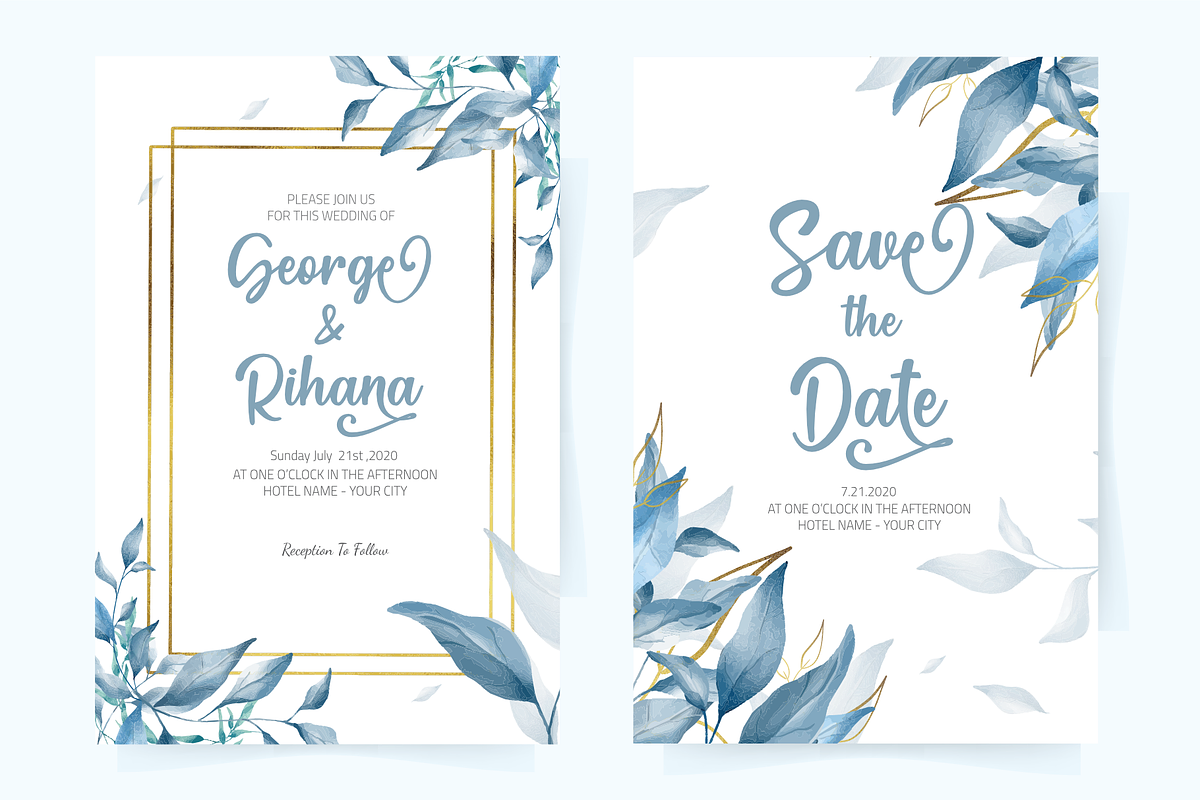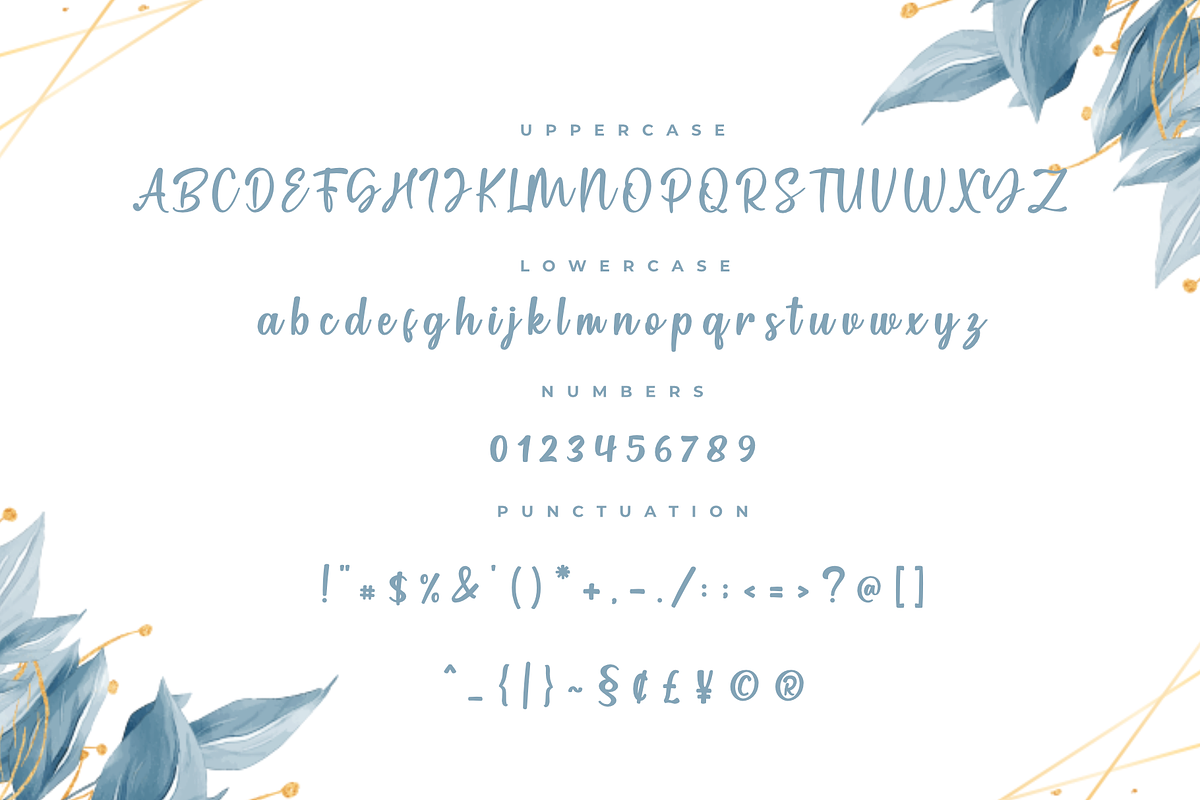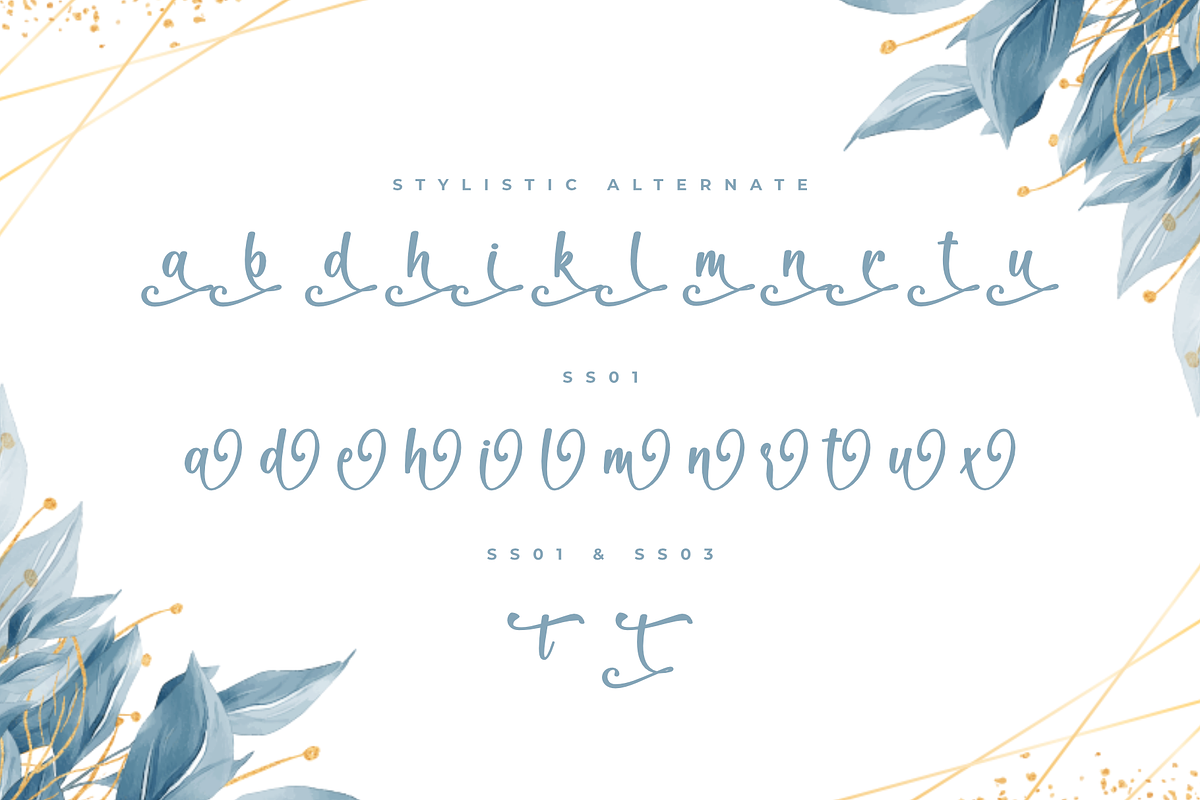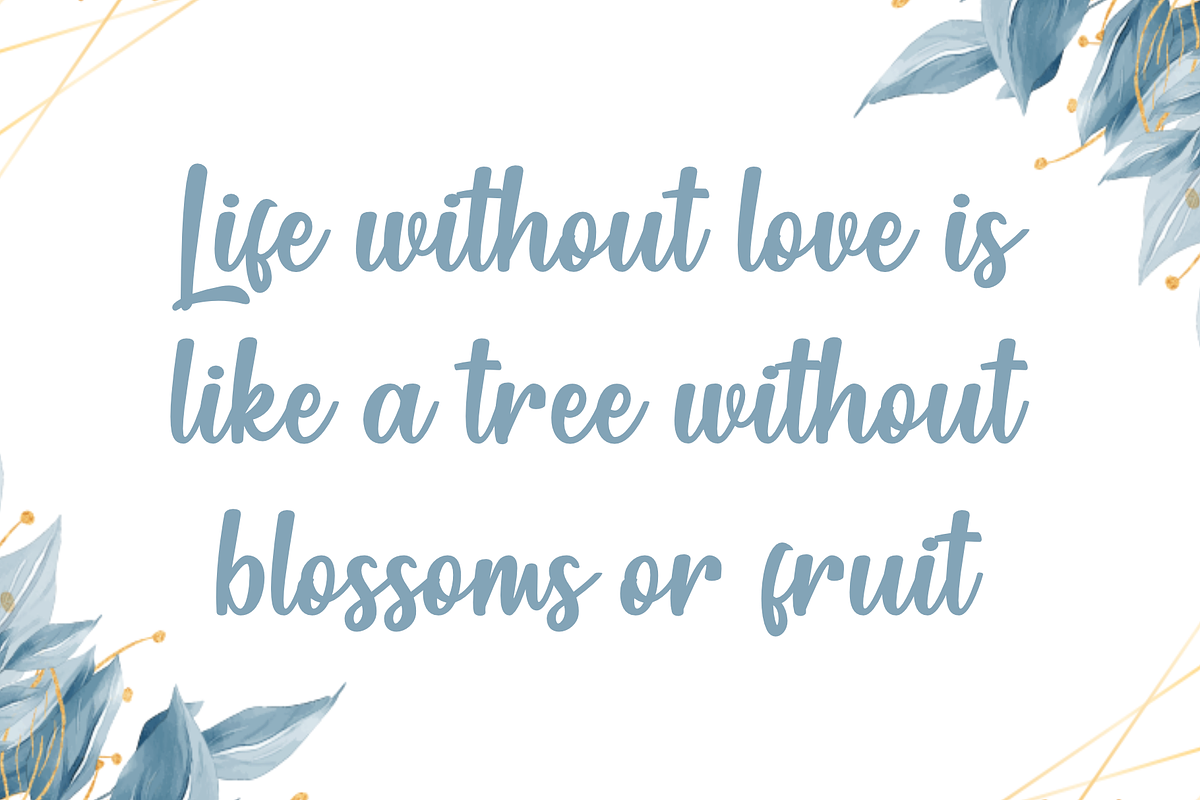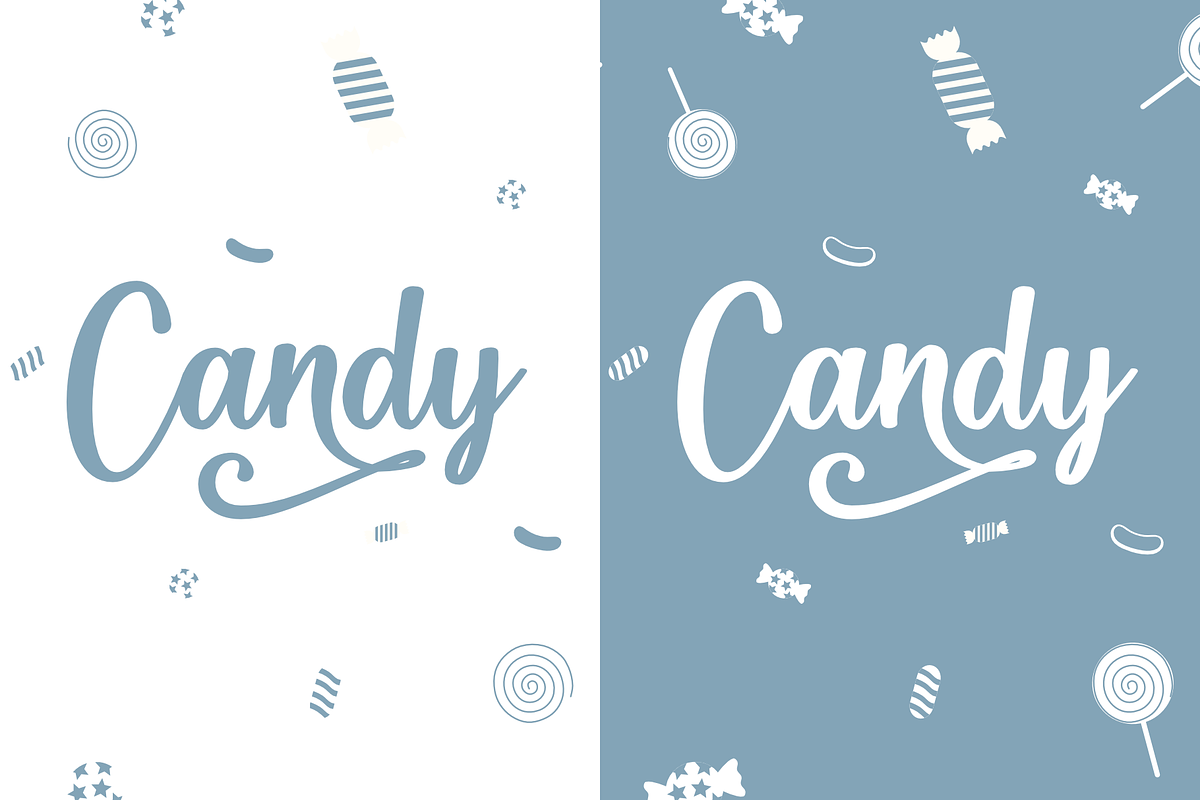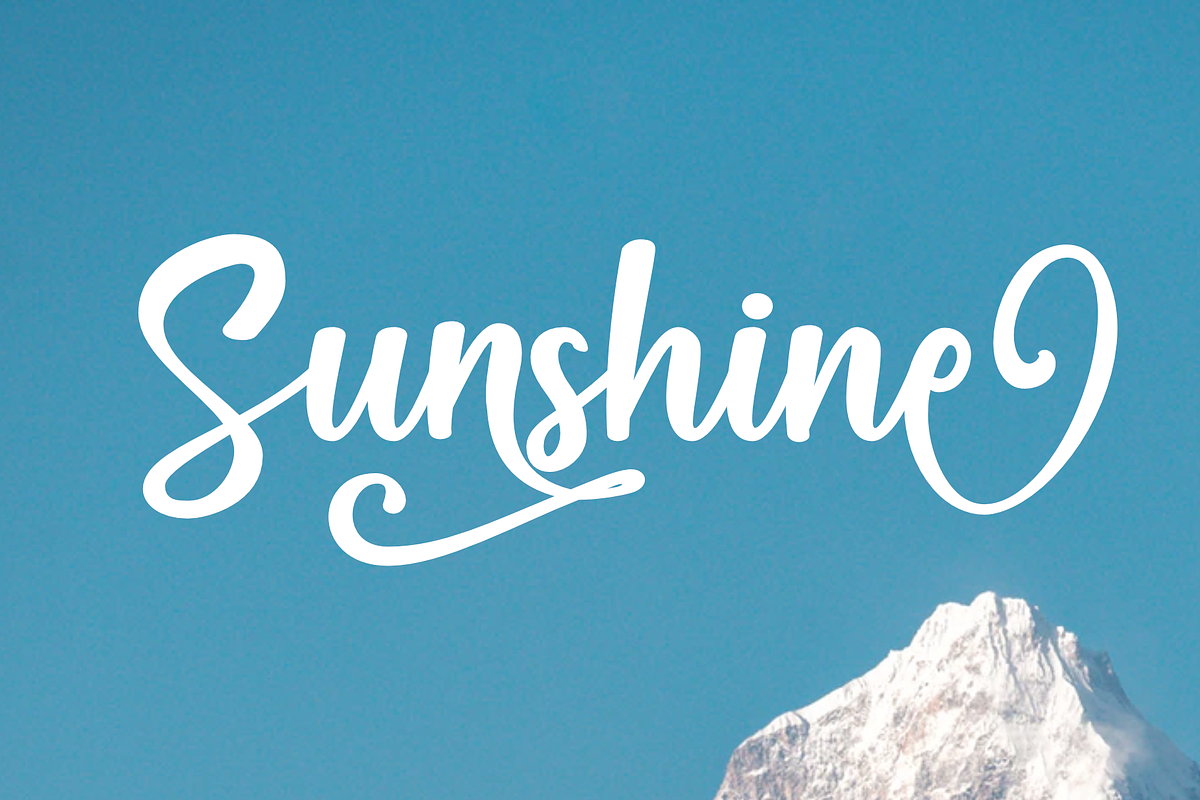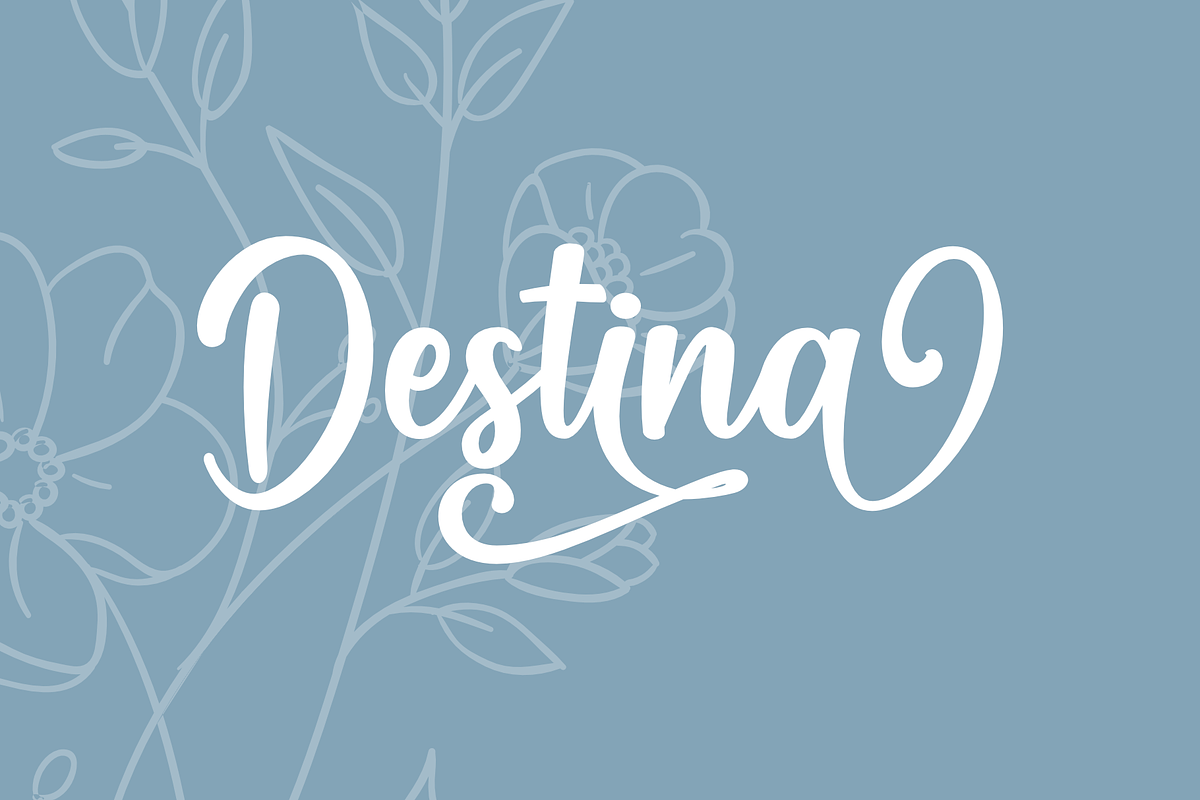
Gather - Craft Font
Gather is a cute and casual handwritten font with an incredibly friendly feel. Whether you’re looking for fonts for Instagram or calligraphy scripts for DIY projects, this font will turn any creative idea into a true piece of art! Also, gather is also equipped with various kinds of alternate which is very suitable for your needs, especially craft or DIY project